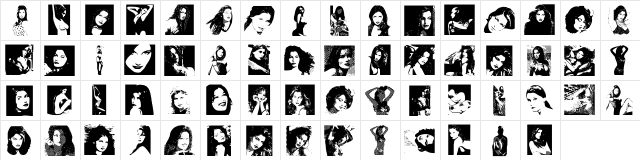
LaetitiaBats2 Regular
Design Context for LaetitiaBats2 Typeface
LaetitiaBats2 is a composed and adaptable typeface that performs quietly and consistently across a wide range of design contexts.